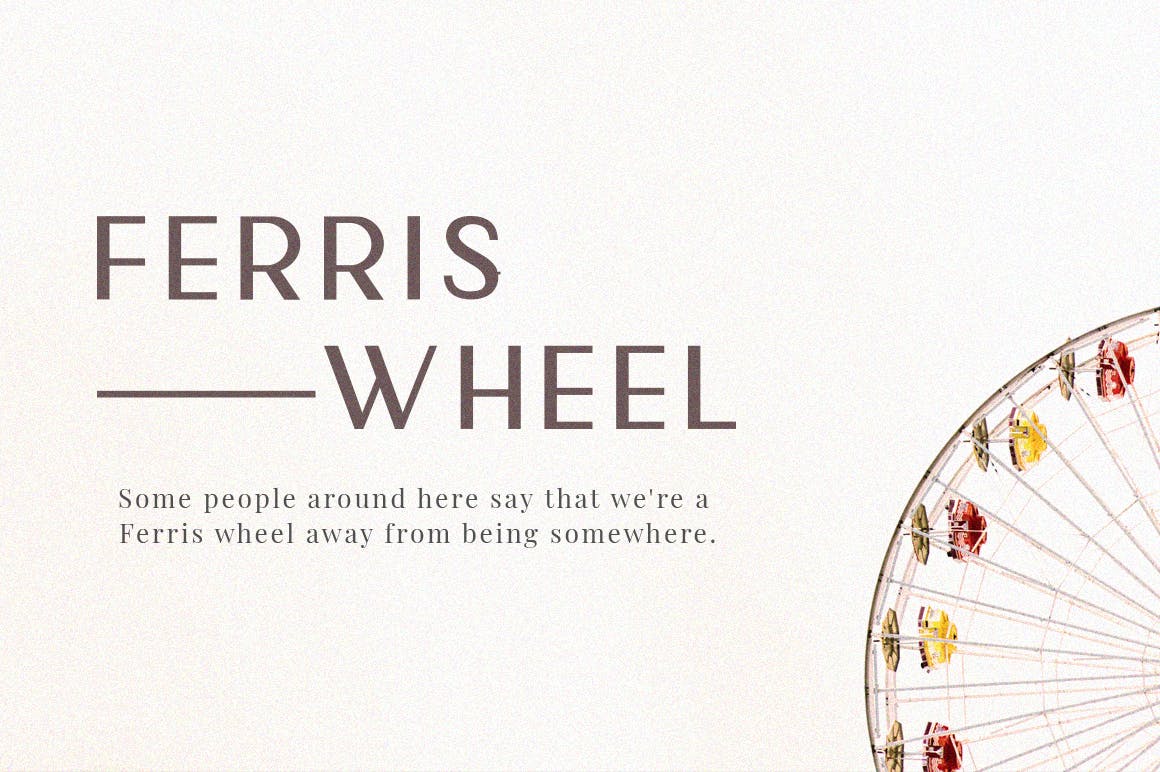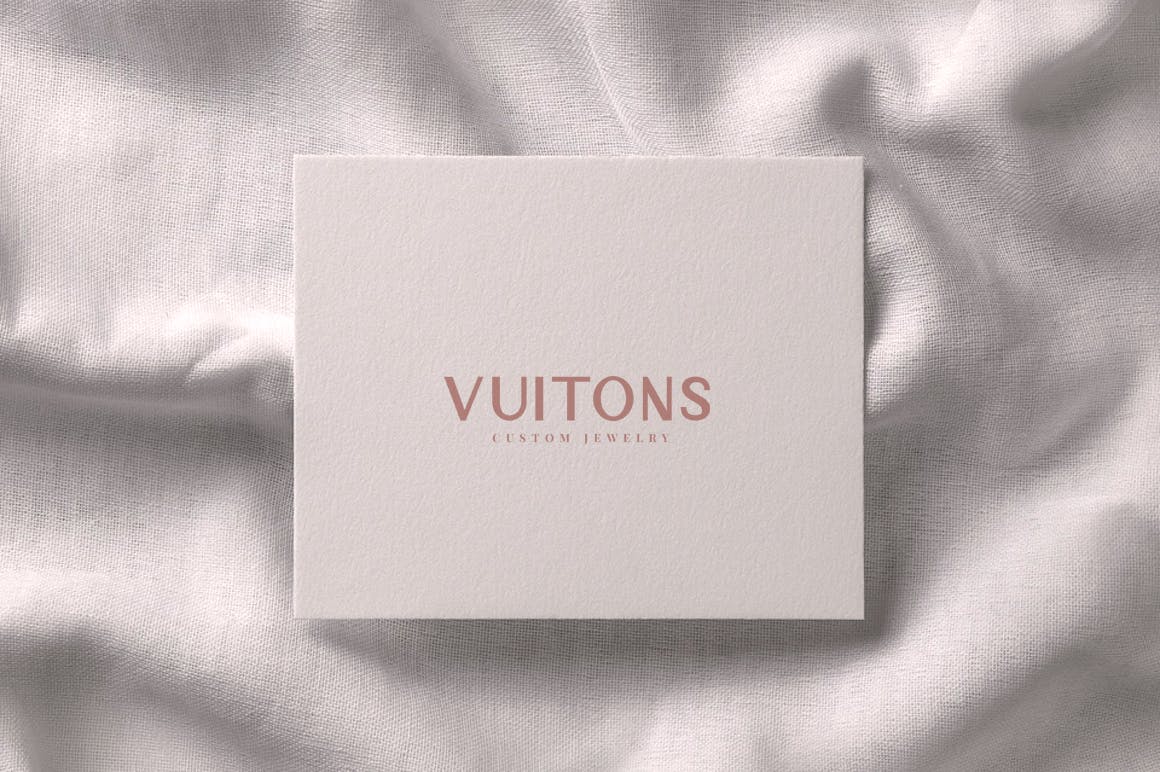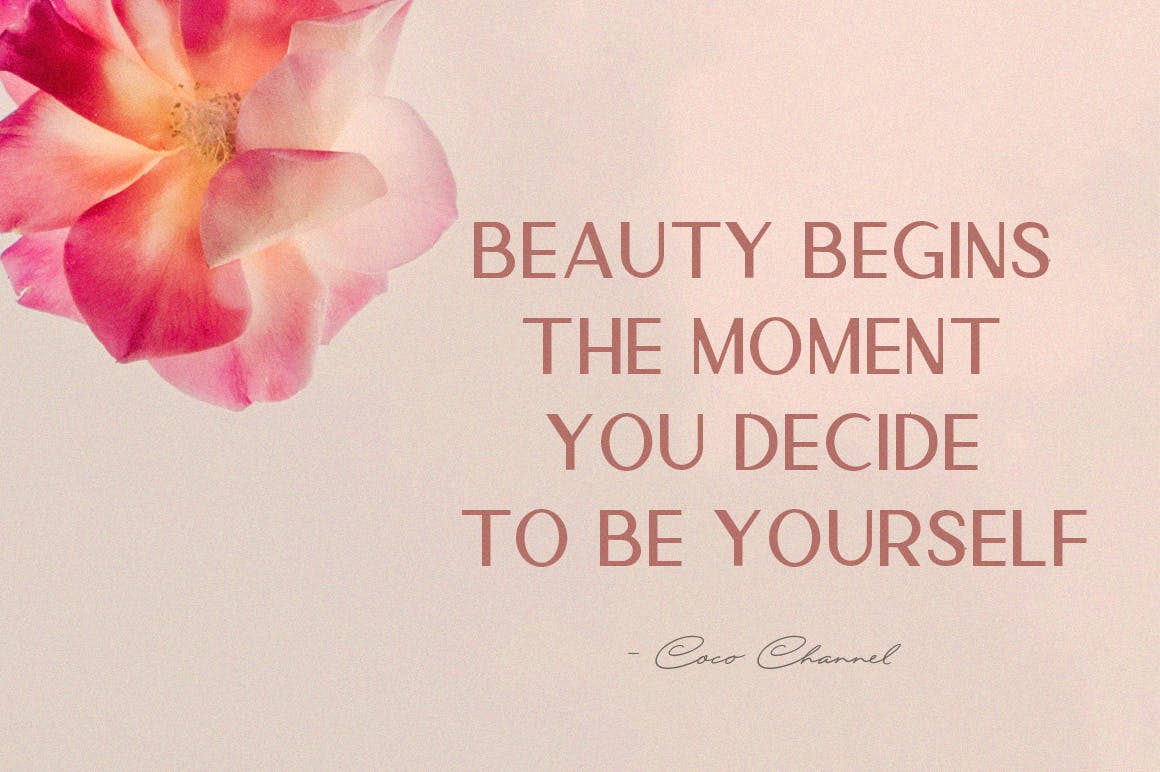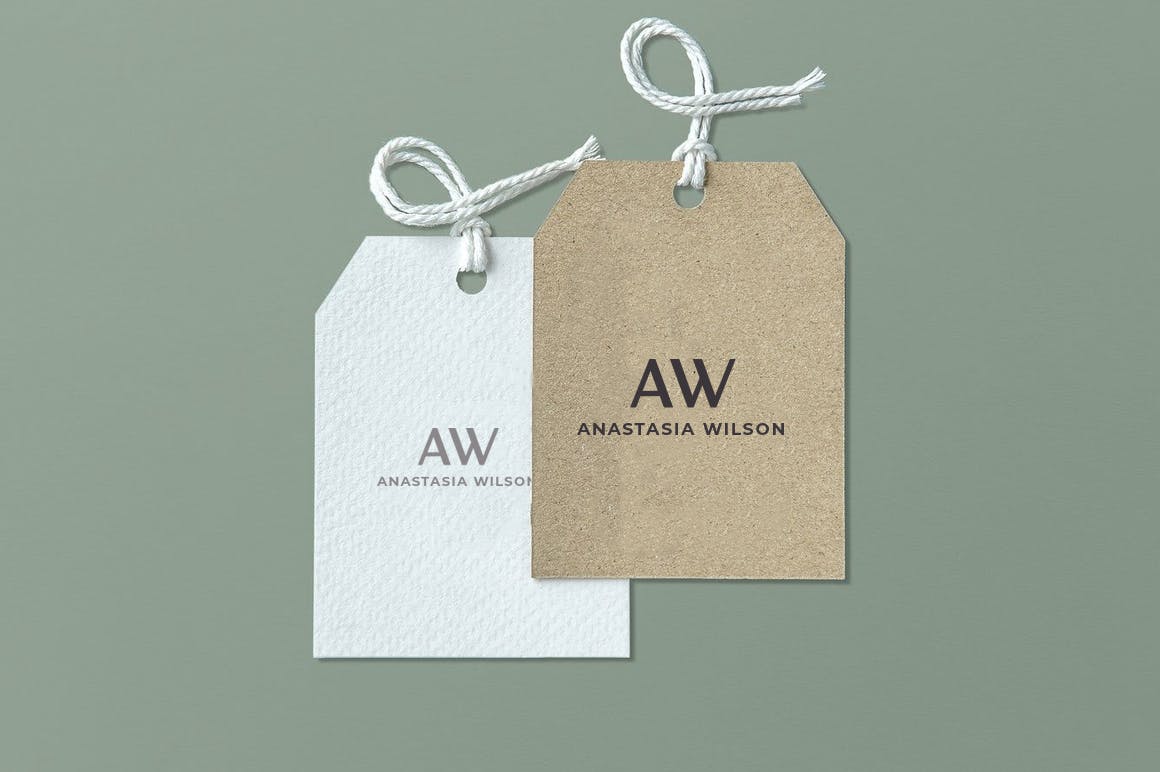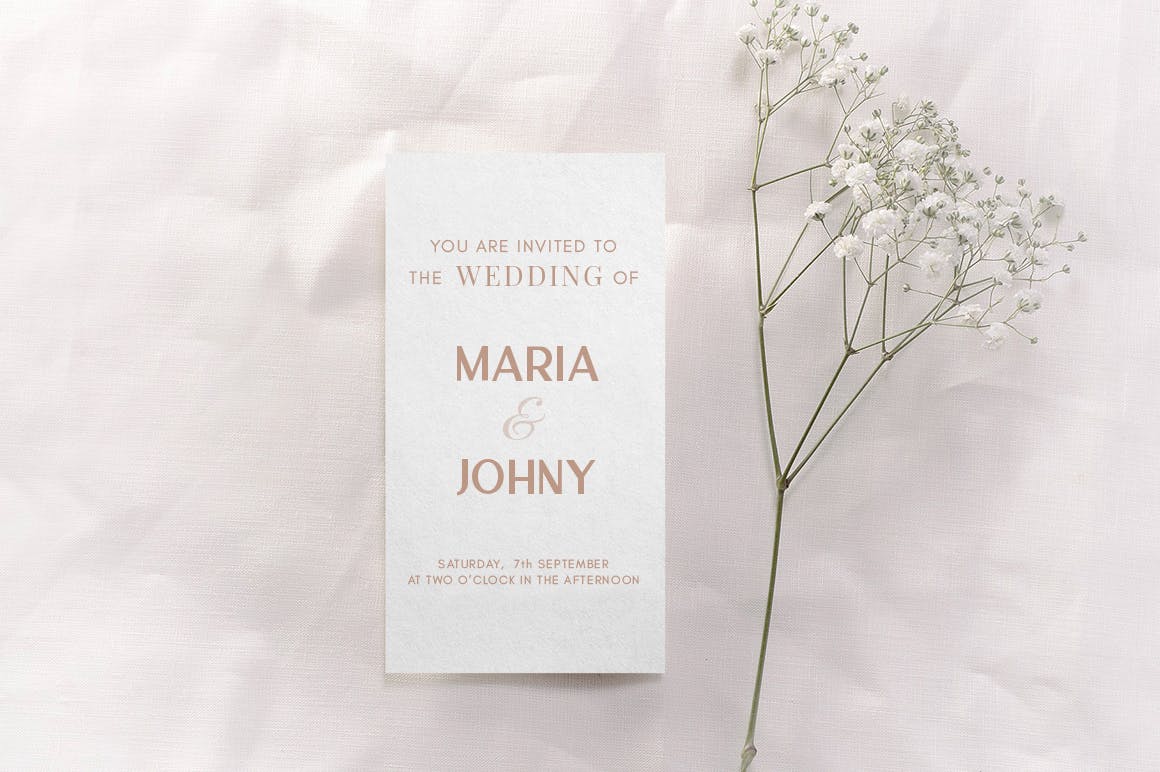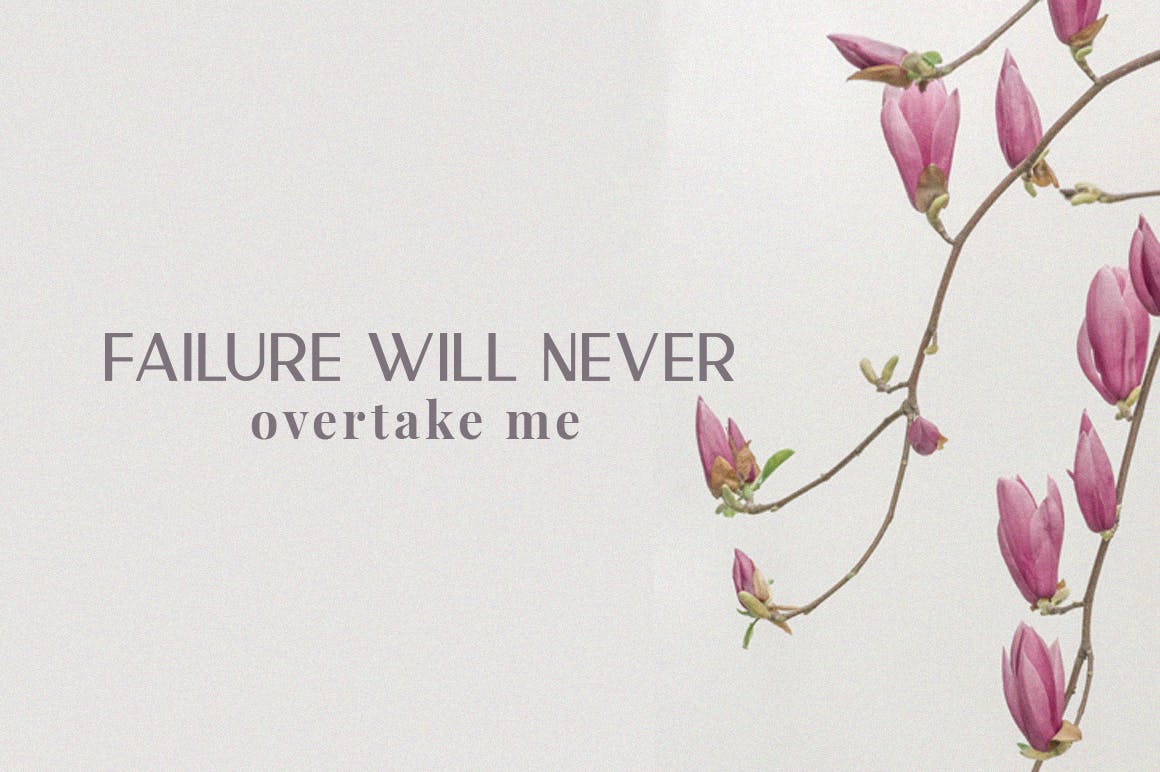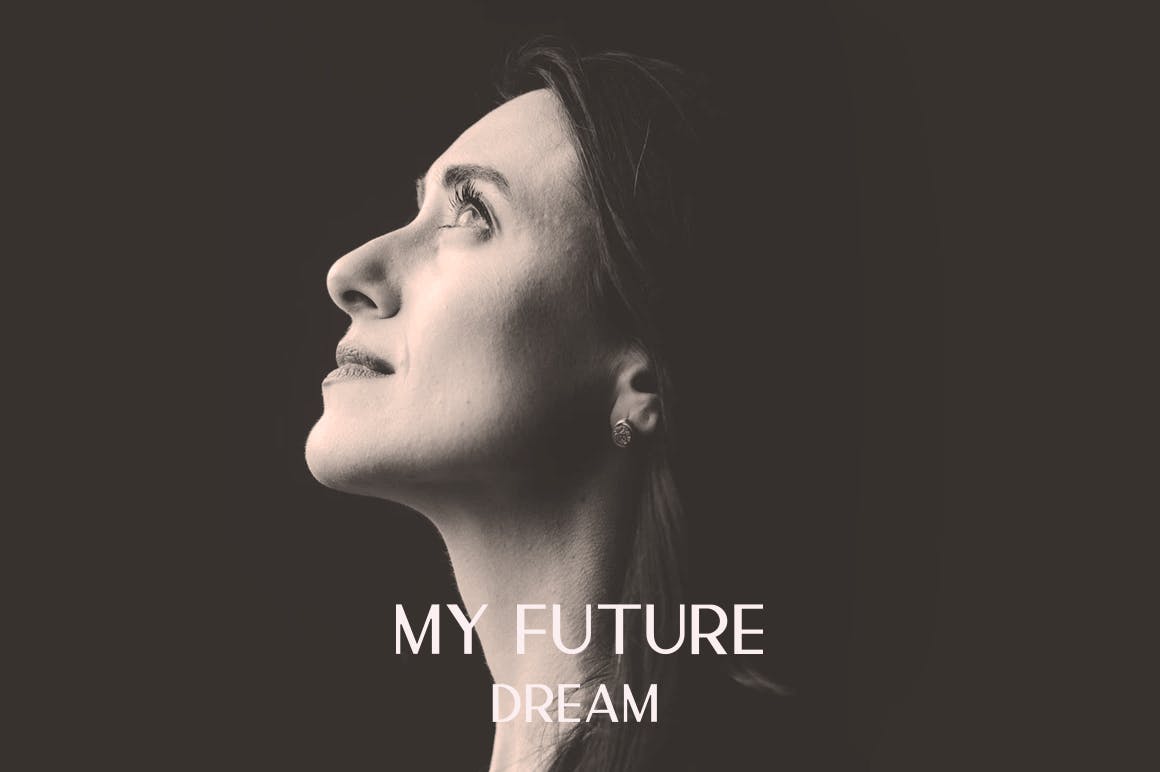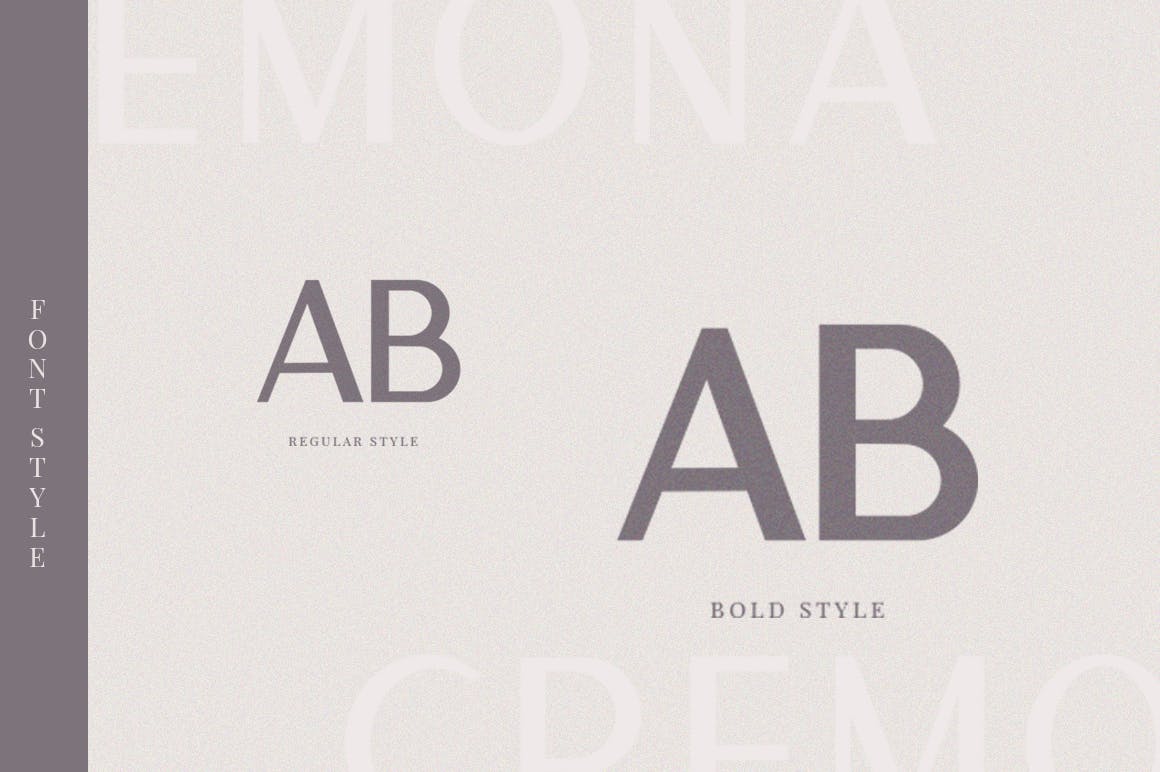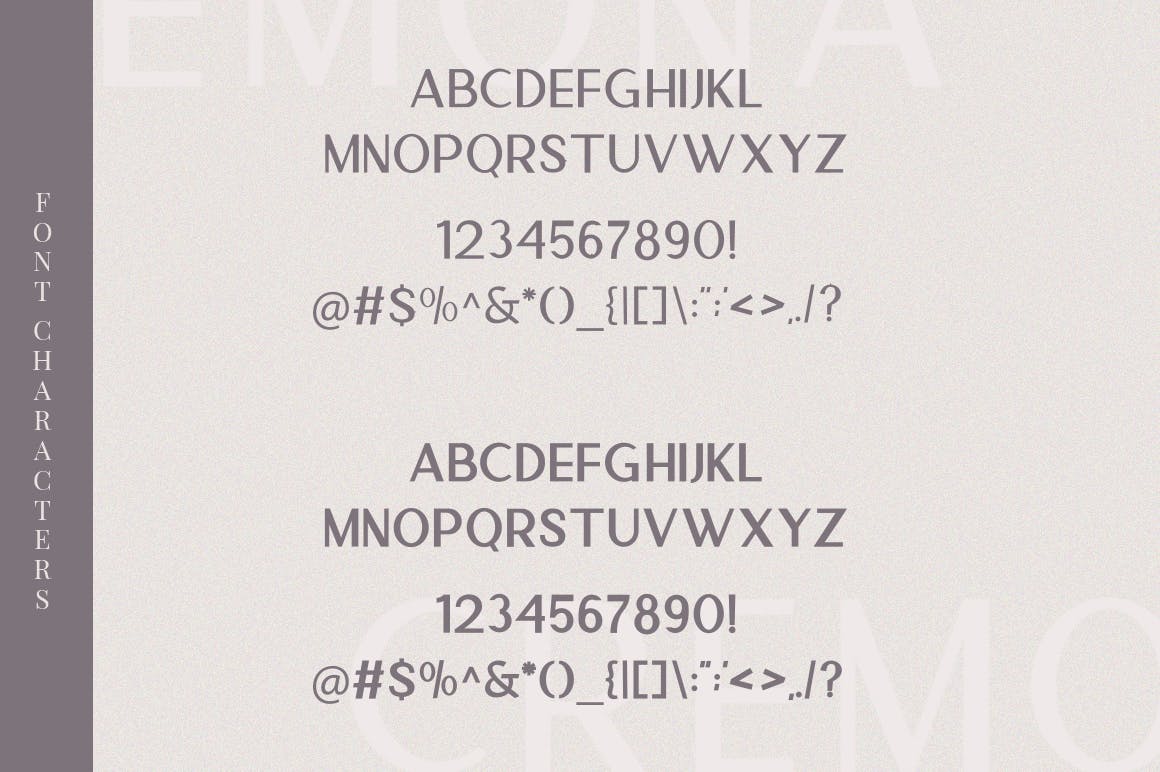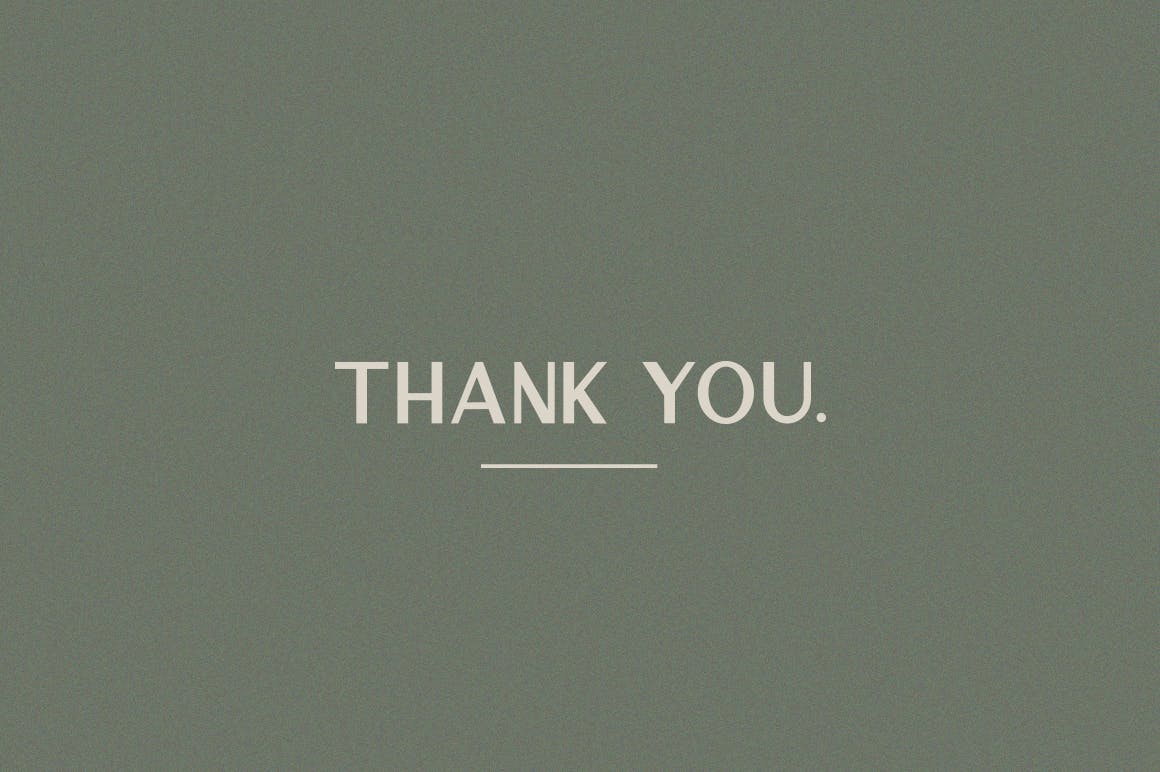
Free Cremona Minimal Sans Serif
Free Cremona Minimal Sans Serif is a beautiful sans font with strong character. It looks professional for your projects. The font is looking very tough, it will make your design has strong integrity. Hence, it is very suitable for presentation, business cards, magazines, banners, and much more. this demo font is available for two format files which are TTF and OTF format file that you can install and use it on your devices. Also, it is available for regular, bold, and italic. However, it comes with a personal license use, but if you want to get more features, you purchase the premium version.